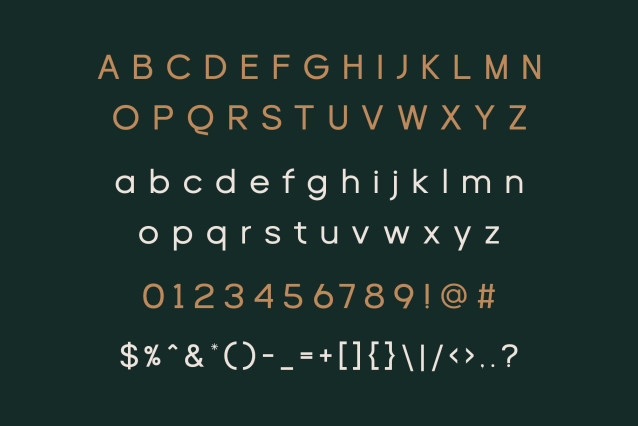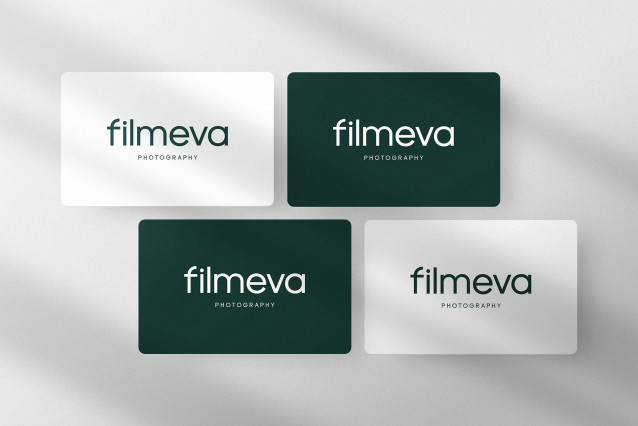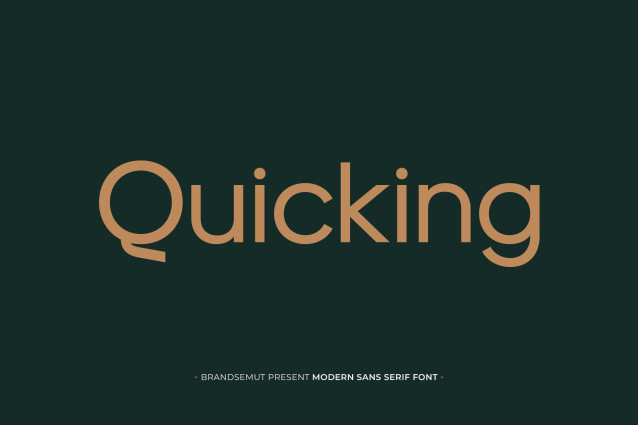
Quicking Font
Quicking Font is a modern and simple font, best used as a display for headings, logos, branding, magazines, product packaging and invitations. Quicking come with clean lines and smooth curves give any project an extra touch of class.